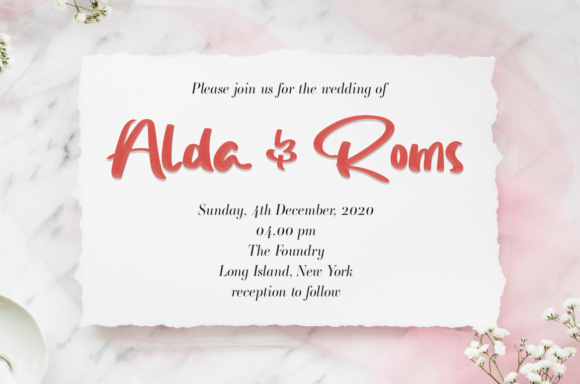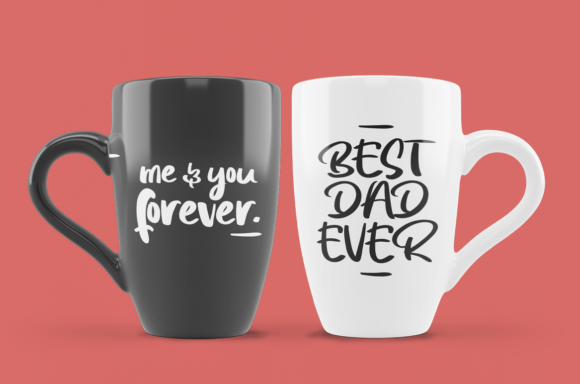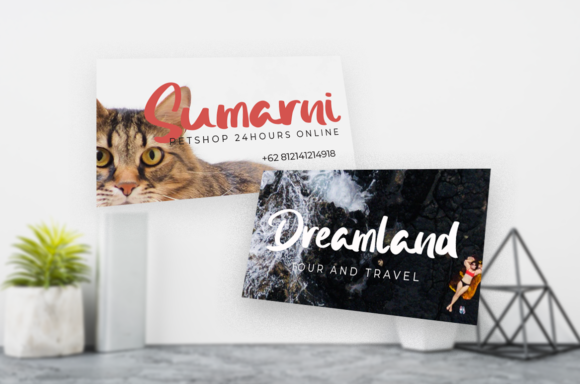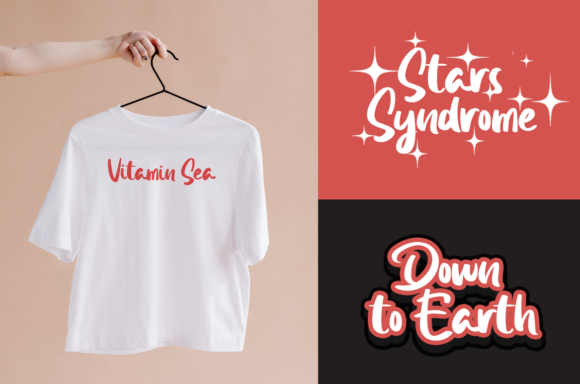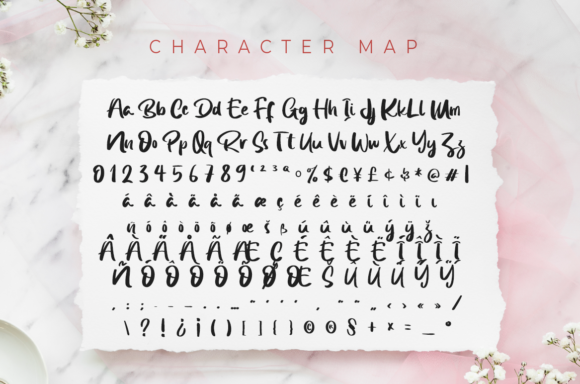
Introducing Bonafida Font: The Ultimate Stylish and Trendy Display Font
Are you a designer, crafter, or digital artist looking for a font that can elevate your creative projects? Look no further than Bonafida Font! This stylish and trendy display font is perfect for a wide range of applications, from crafting and digital designing to presentations and greeting cards making.
What Makes Bonafida Font So Special?
Bonafida Font is a unique and eye-catching font that is sure to make your projects stand out. Its stylish and trendy design makes it perfect for anyone looking to add a touch of sophistication and elegance to their work. Whether you’re creating a logo, crafting a handmade card, or designing a presentation, Bonafida Font is the perfect choice.
Key Features of Bonafida Font
- Stylish and Trendy Design: Bonafida Font features a stylish and trendy design that is sure to impress. Its unique and elegant lettering makes it perfect for a wide range of creative projects.
- Versatile: Bonafida Font is a versatile font that can be used for a variety of applications, including crafting, digital designing, presentations, and greeting cards making.
- Easy to Read: Despite its stylish design, Bonafida Font is easy to read, making it perfect for use in body text as well as headings and titles.
Why Choose Bonafida Font?
There are many reasons why Bonafida Font is the perfect choice for designers, crafters, and digital artists. Here are just a few:
- Add a Touch of Sophistication: Bonafida Font adds a touch of sophistication and elegance to any project, making it perfect for anyone looking to create a professional-looking design.
- Stand Out from the Crowd: With its unique and stylish design, Bonafida Font is sure to make your projects stand out from the crowd.
Tips and Tricks for Using Bonafida Font
Here are some tips and tricks for getting the most out of Bonafida Font:
- Use it for Headings and Titles: Bonafida Font is perfect for use in headings and titles, where its stylish design can really shine.
- Experiment with Different Colors: Experiment with different colors and textures to really make your project pop.
- Pair it with Other Fonts: Bonafida Font pairs well with other fonts, so don’t be afraid to experiment with different combinations.
In conclusion, Bonafida Font is a stylish and trendy display font that is perfect for designers, crafters, and digital artists. Its unique and elegant design makes it perfect for a wide range of creative projects, from crafting and digital designing to presentations and greeting cards making. With its versatility, ease of use, and stylish design, Bonafida Font is sure to become a favorite in your font library.